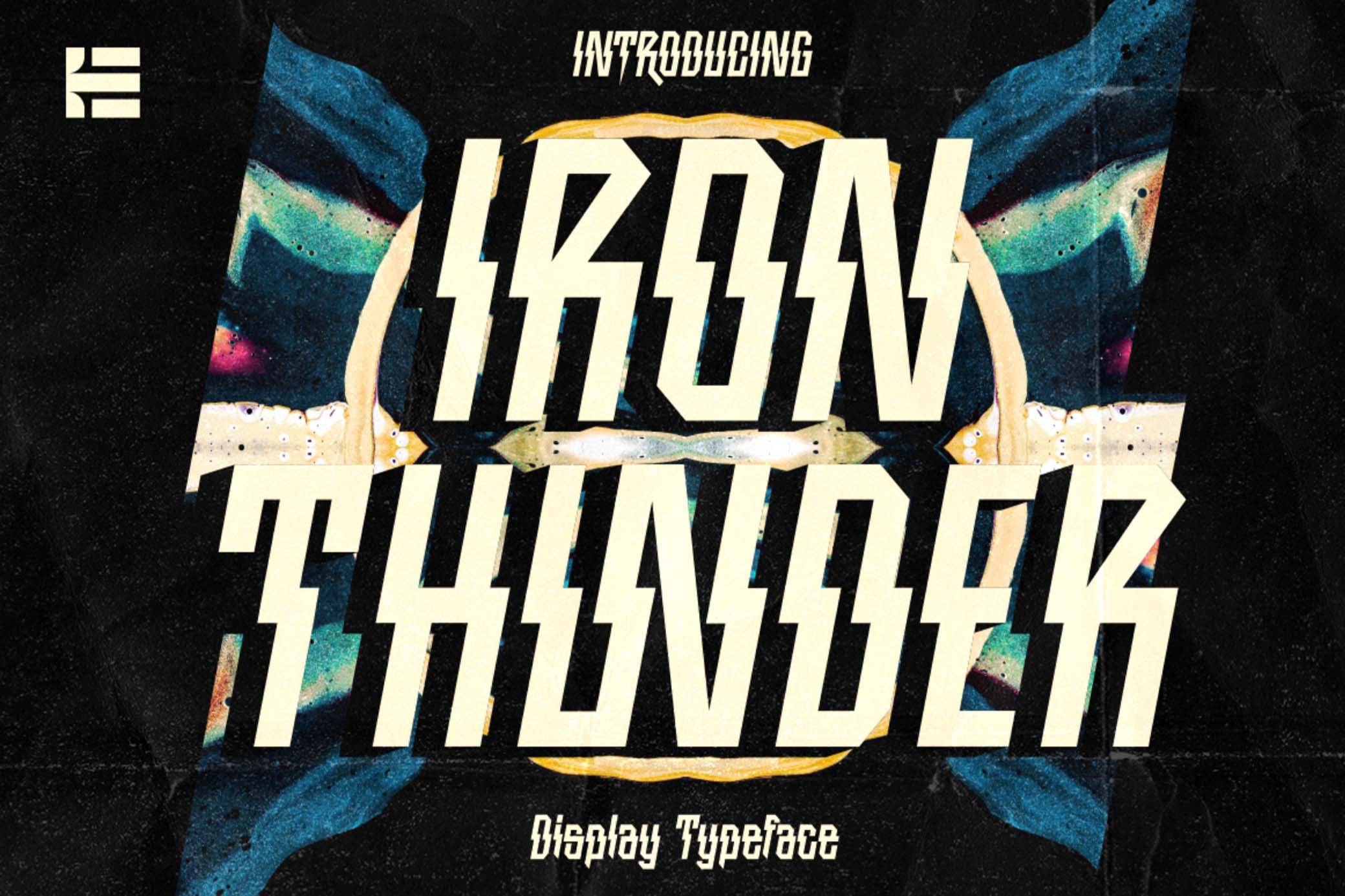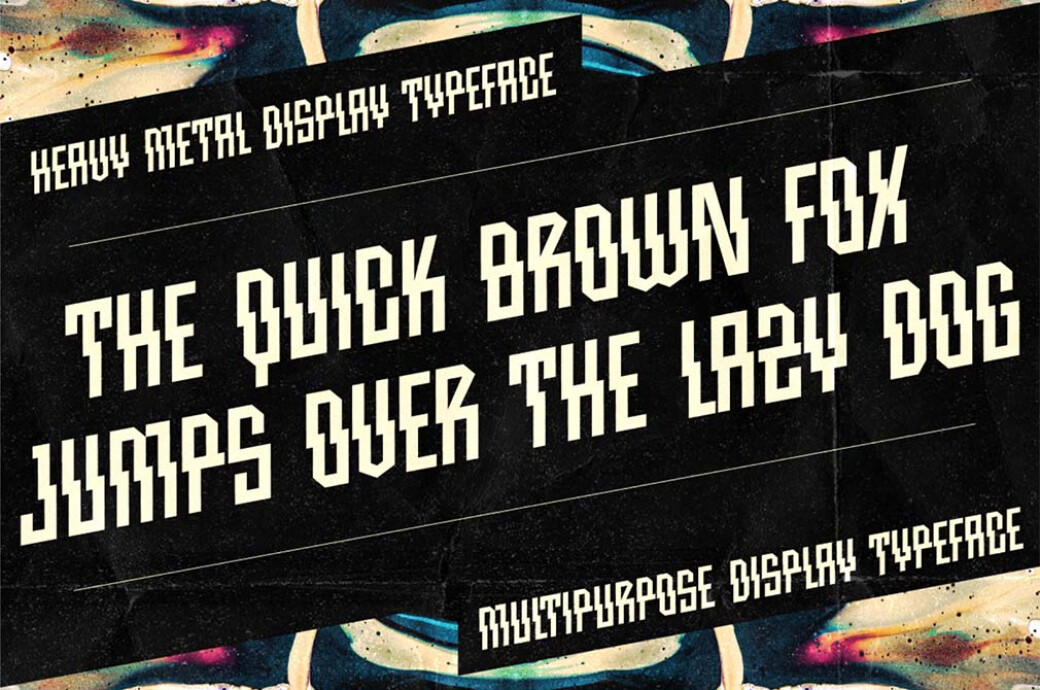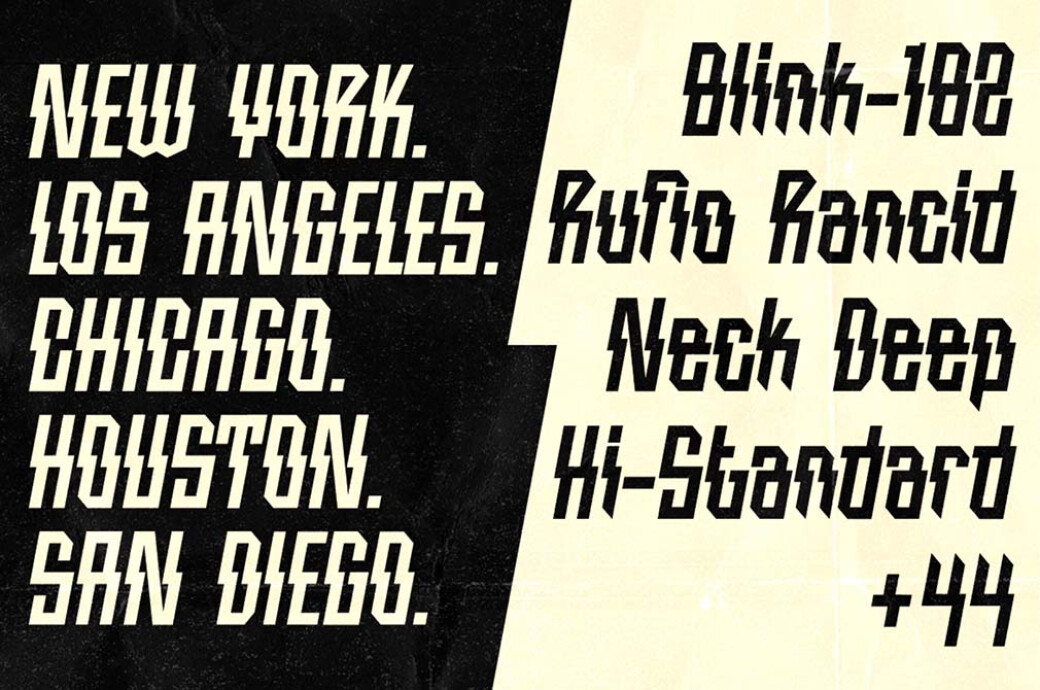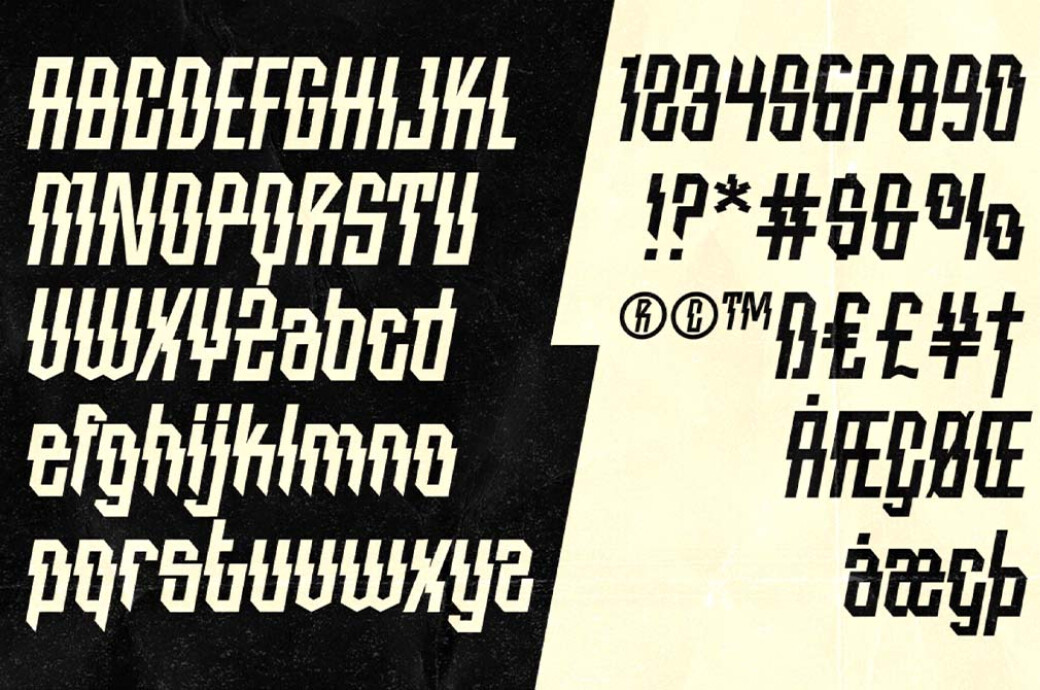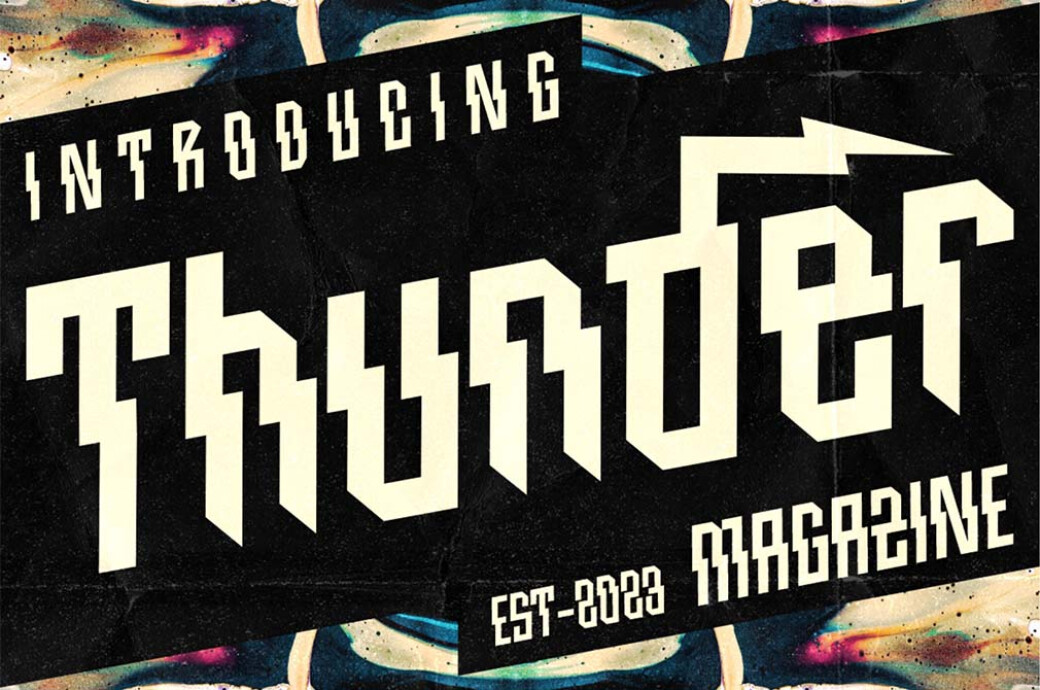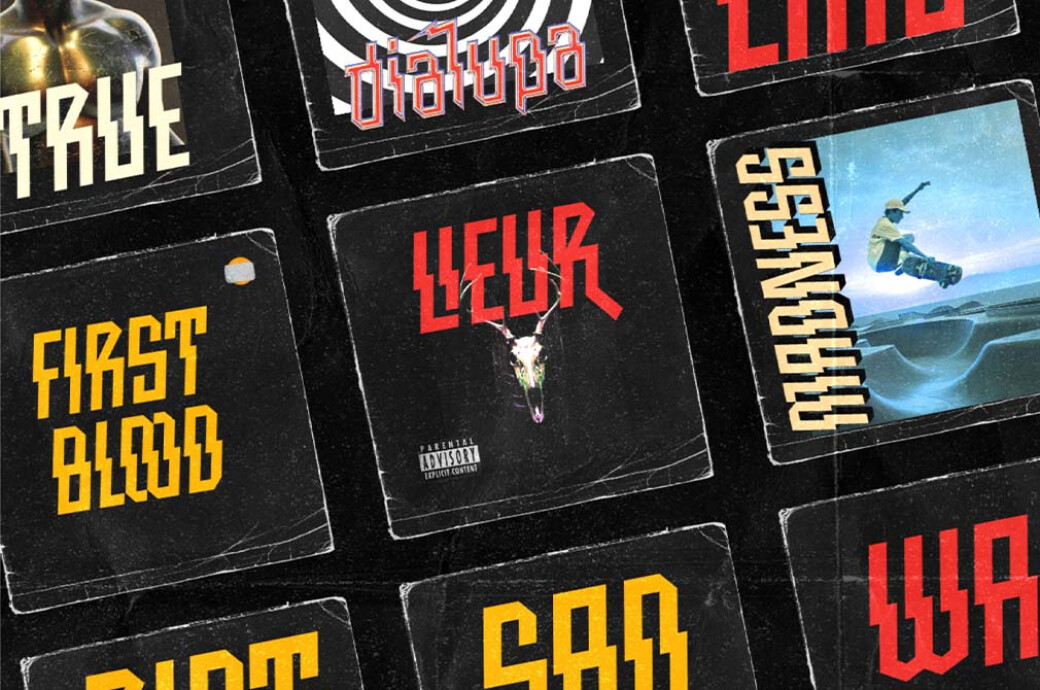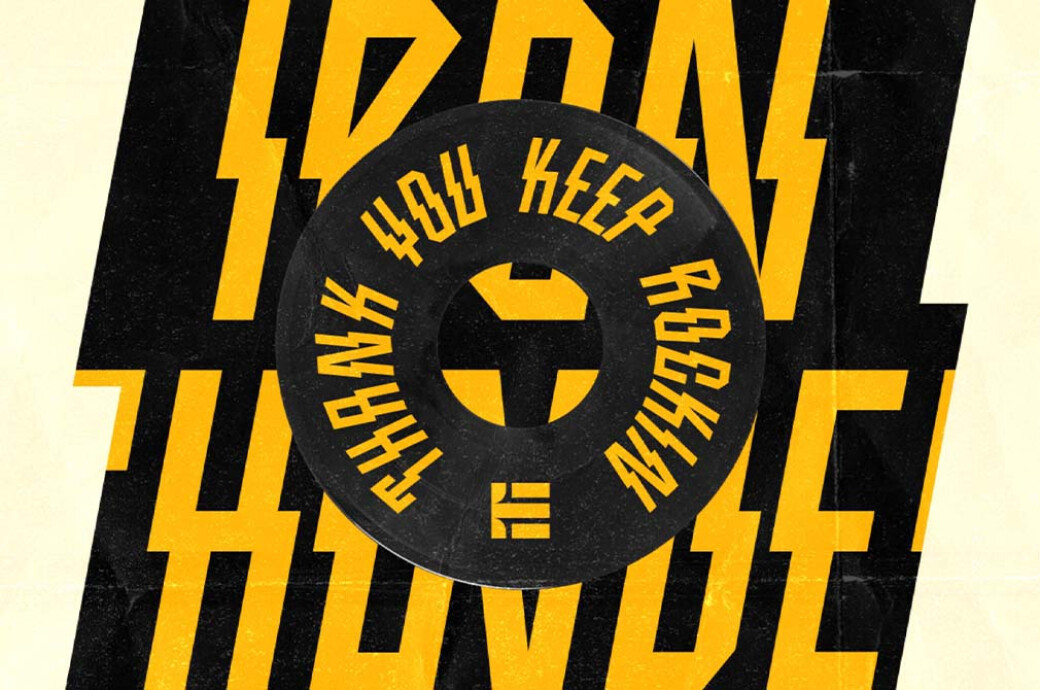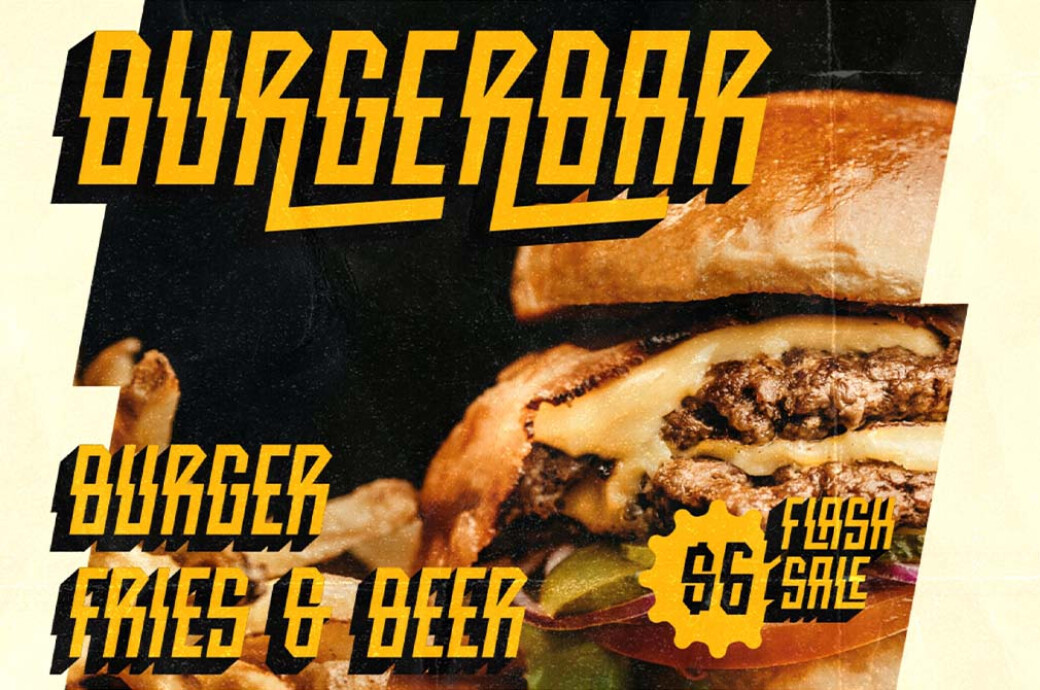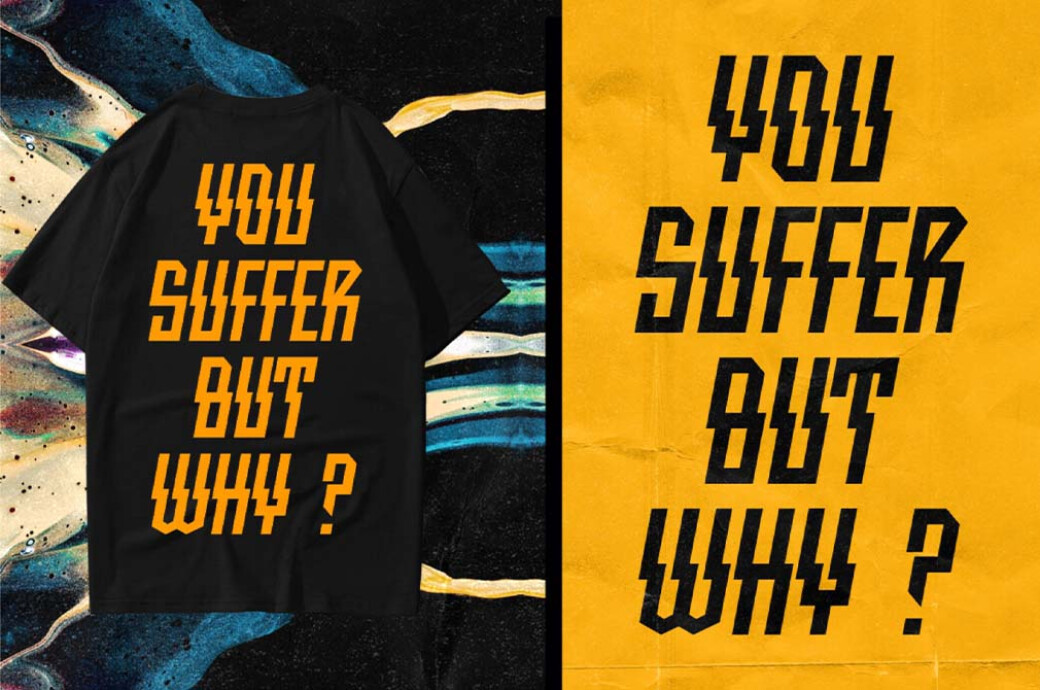
Iron Thunder Display Font
IronThunder
Iron Thunder brings everything you love about the 80s typography: heavy metal band logos, geometric typefaces, and rage in every element — like it's preparing you to rebel against thewhole world.
This display font is a priceless discovery for those obsessed with classic metal brand branding, like Iron Maiden, Kiss, Slayer, and Slaughter. It features thunderbolt-like elements with tons of energy in every character. Uppercases, lowercases, punctuation, symbols, numbers, and multilingual support — the font's got everything to go as a t-shirt print, poster, or concert promo.